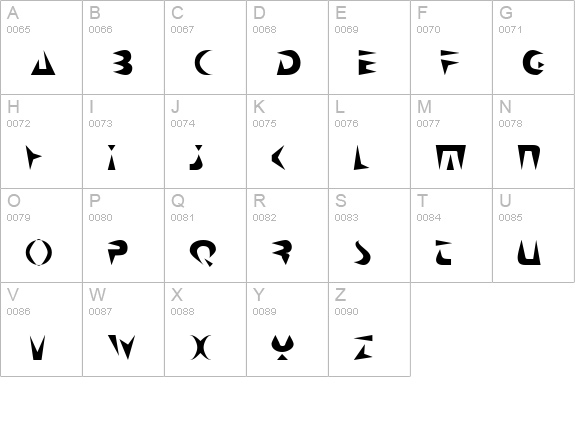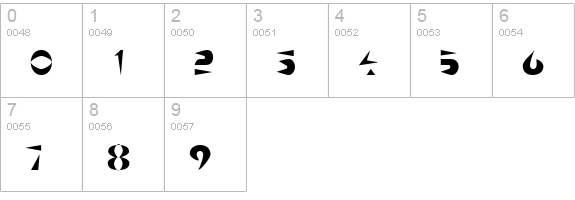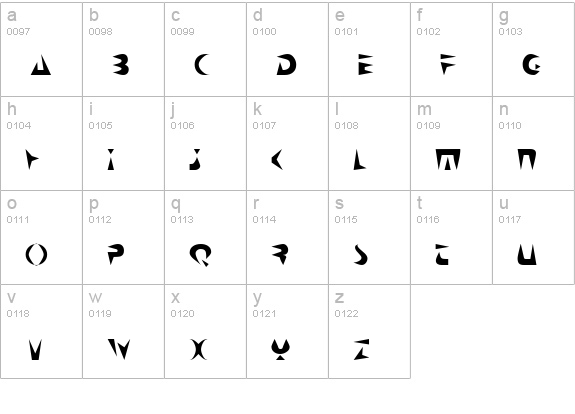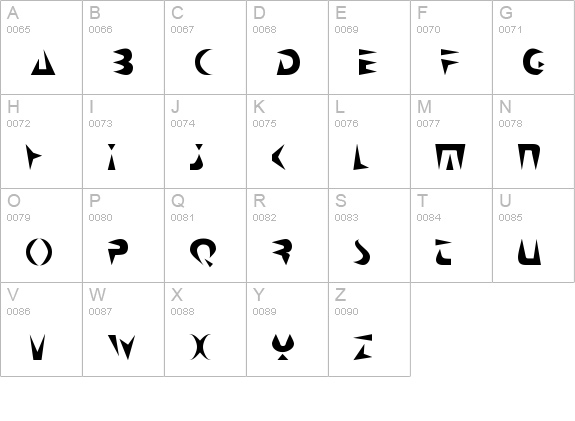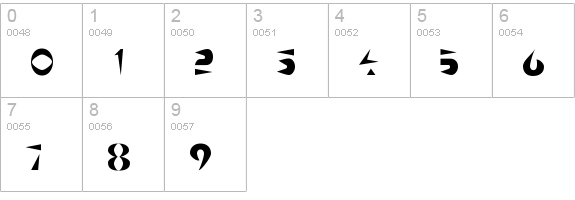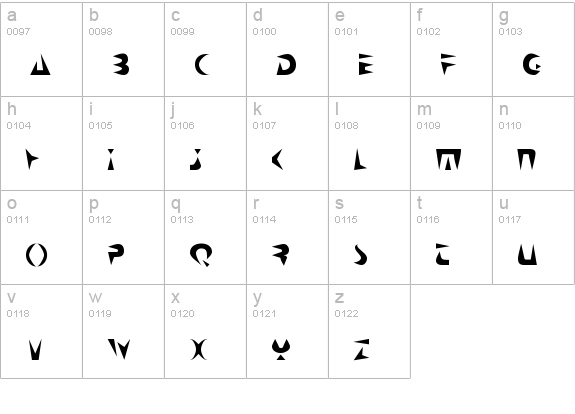
NeoSpacial Font Details
NeoSpacial font is a modern and sleek typeface that exudes a sense of futuristic sophistication. Its clean lines and sharp edges make it perfect for projects that require a contemporary and professional look. With its unique design, NeoSpacial stands out from the crowd and adds a touch of elegance to any design. What sets NeoSpacial apart is not only its striking appearance but also the fact that it is available for free! Yes, you read that right - this amazing font can be downloaded at no cost from FontsMarket.com. Whether you are a designer looking to elevate your projects or a business in need of a fresh and innovative font, NeoSpacial is the perfect choice. Download it today and let your creativity soar with this exceptional typeface.